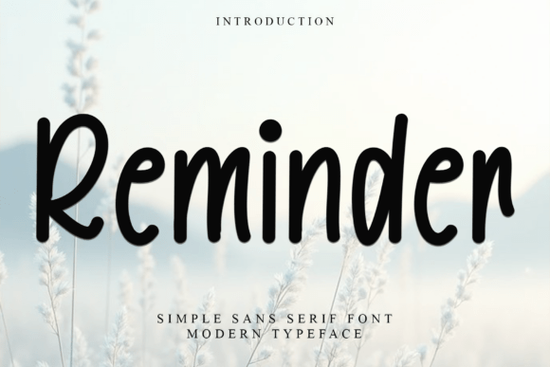
If you're looking for a friendly, hand-crafted holiday font that feels warm and familiar not stiff or overly polished Reminder Font is worth your attention. It’s designed with festive cheer in mind: think handwritten gift tags, cozy greeting cards, and cheerful social media graphics for December. Unlike fonts that lean too modern or too formal, Reminder strikes a balance it’s decorative but legible, whimsical but not distracting. And because it’s PUA encoded, you get quick access to alternate characters, swashes, and ligatures without needing design software wizardry.
What kind of projects does Reminder Font work best for?
This isn’t a font you’d use for body text in a newsletter but it shines where personality matters most. Crafters love it for printable ornaments and DIY advent calendars. Print-on-demand sellers use it on mugs, tote bags, and wall art aimed at holiday shoppers. Small business owners add it to seasonal email headers or Instagram story templates to signal “it’s that time of year” without saying a word. Since the letters have gentle curves, subtle flourishes, and a slight bounce in their rhythm, they read as joyful not frantic.
You’ll also find it pairs well with simpler sans-serif fonts for contrast (like pairing Simple Grinches Font for playful headlines and clean supporting text). That kind of layering helps keep designs balanced while still feeling handmade.
How does it compare to other festive or vintage-style fonts?
Reminder stands apart from retro-leaning options like Retro Vintage Font, which leans into 1950s diner signs and bold outlines. It’s also gentler than Chunky Retro Font, which works great for posters but can feel heavy in smaller layouts. Reminder sits somewhere between nostalgic and fresh think old-fashioned cookie tins, not neon-lit storefronts.
For monogram-based projects like personalized stockings or embroidered napkins it complements Monogram Font nicely. You might use Reminder for the main phrase (“Merry & Bright”) and a classic monogram style for initials underneath.
It supports Western Latin languages (including accented characters used in French, Spanish, and German), so it’s usable for bilingual holiday cards or small-batch product labels sold internationally. Just double-check spacing when mixing with other fonts some of Reminder’s taller ascenders (like the “h” or “k”) may need minor line-height tweaks in tight layouts.
What else fits well with Reminder Font visually?
Think texture and tactility. Pair it with soft watercolor backgrounds, subtle linen overlays, or muted red-and-cream color palettes. It also holds up well next to hand-drawn elements like doodled holly sprigs or simple line-art snowflakes. If you’re building a full holiday collection, consider matching it with Arvoire Leonard Font for elegant script accents, especially in wedding-related holiday invites or boutique packaging.
And if you’re sourcing fonts for multiple seasons, Reminder’s warmth makes it a natural companion to spring or summer fonts with similar organic energy not just holiday-specific ones.